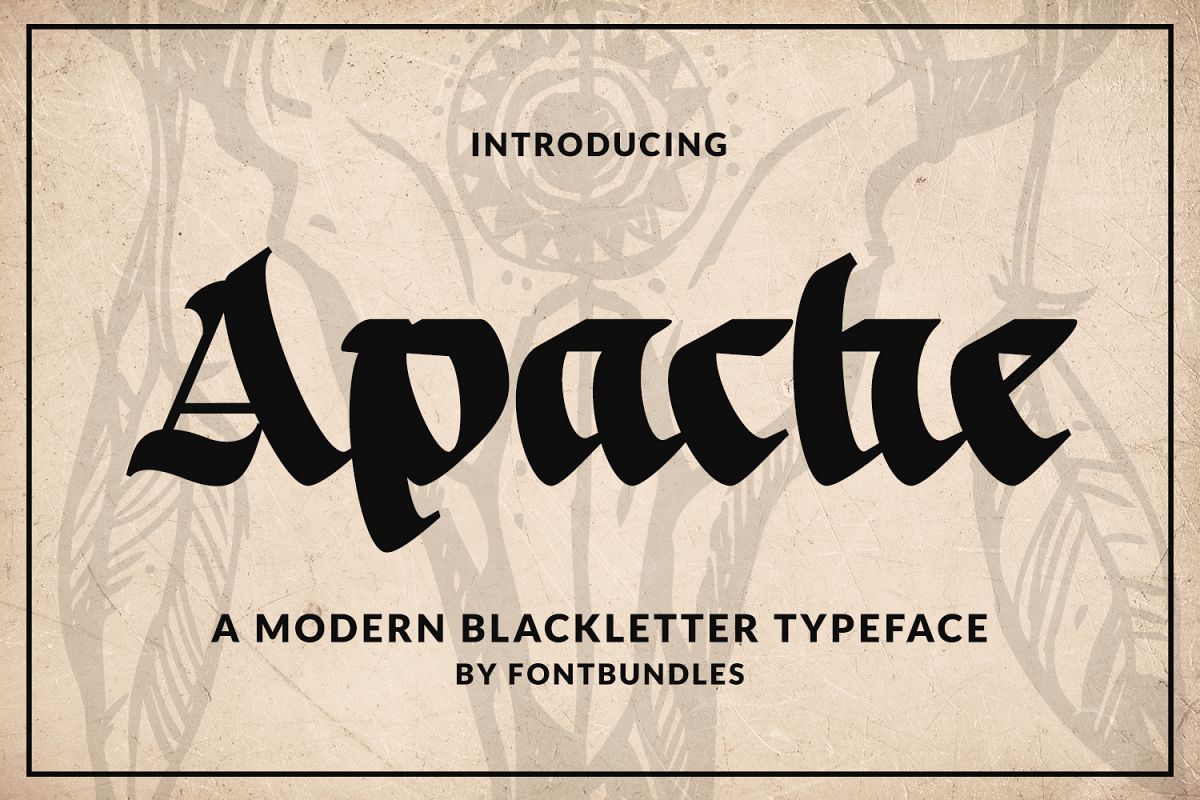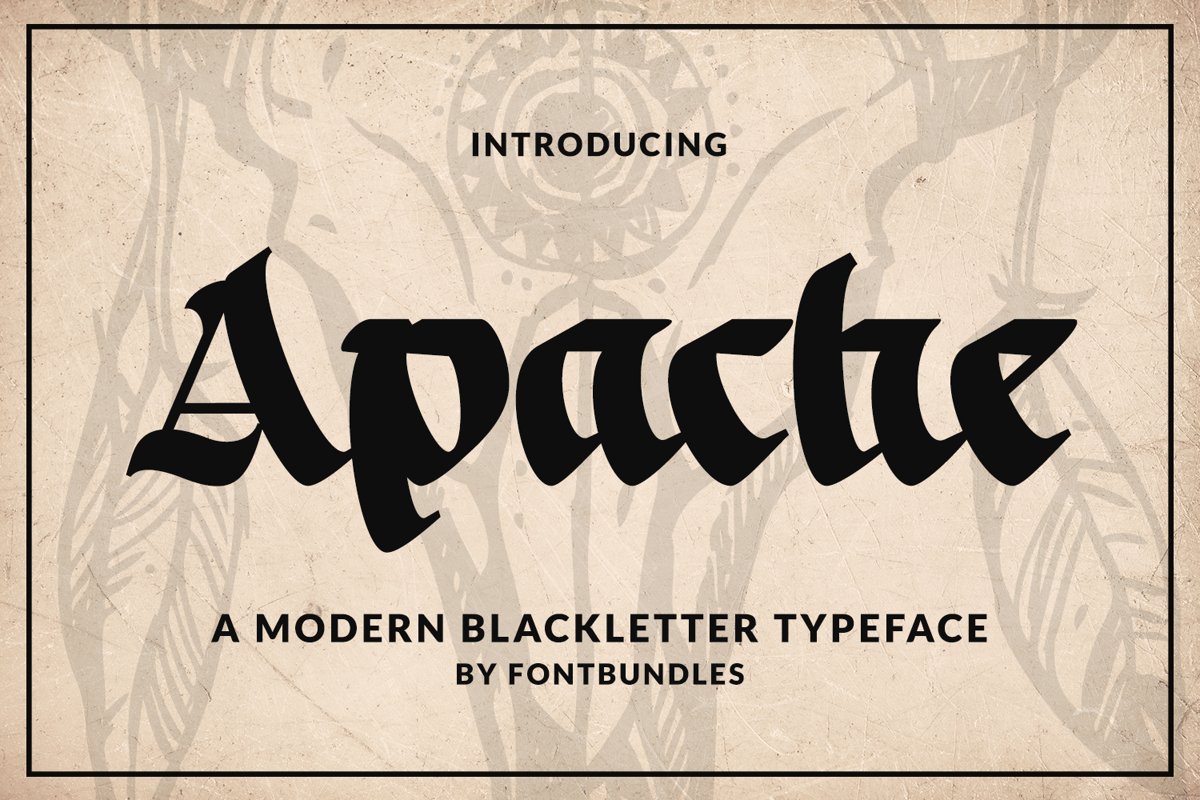
Apache
Apache is a modern blackletter typeface. Perfect for Branding, Logos, Greeting Cards, Stationery Design, Invitations, T-shirts, Apparel, Packaging designs, Posters, Typographic Design, and so much more.